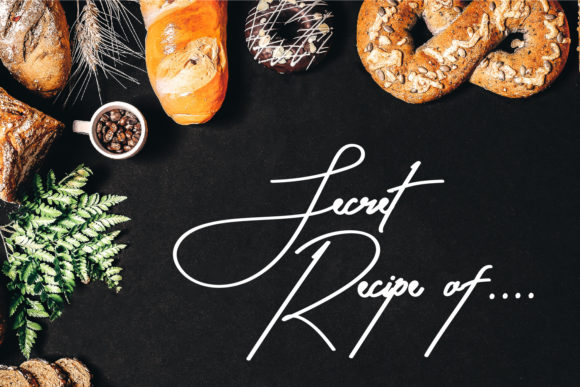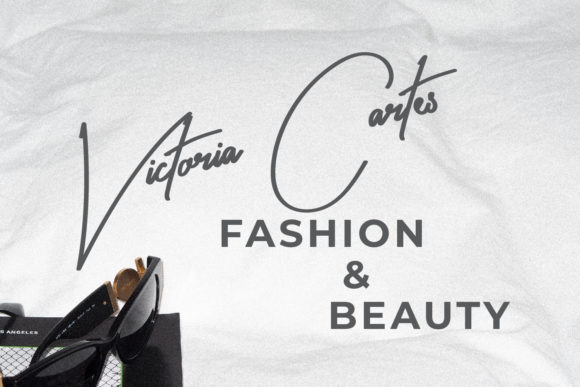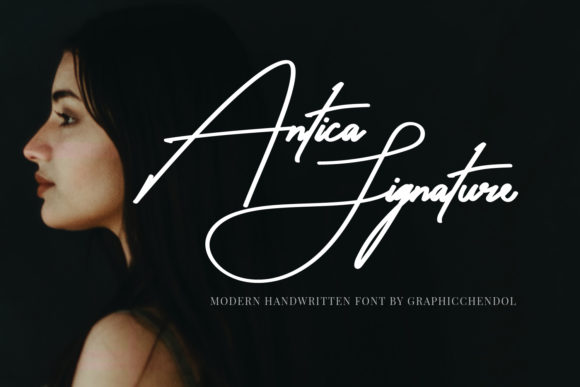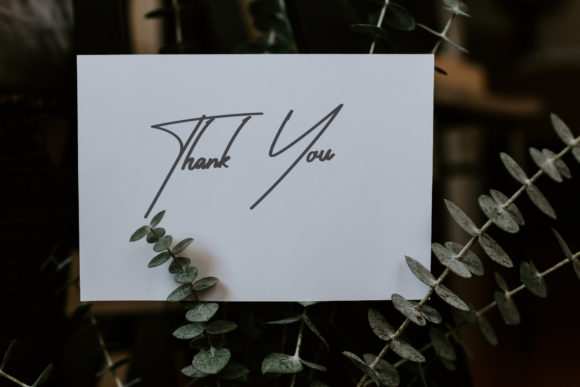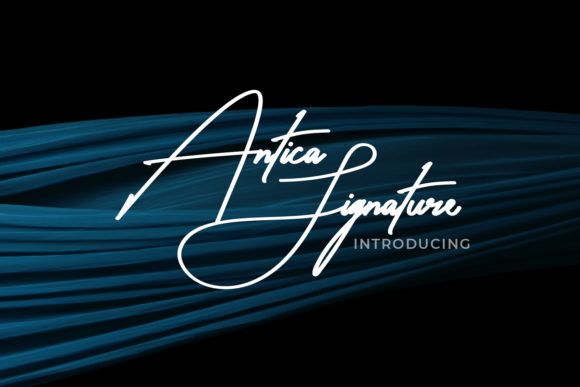
The Designer’s Delight: Antica Font
I still remember the project that led me to discover Antica Font. I was working on a client’s wedding invitation design, and I was struggling to find the perfect handwritten font that would match the elegant yet playful vibe of the event. The client wanted something modern, yet personal and inviting. After hours of browsing through font libraries, I stumbled upon Antica Font, and it was love at first sight! ✨
An Honest Review of Antica Font
As a designer, I appreciate fonts that are versatile and easy to work with. Here’s what I love about Antica Font:
• 💫 Modern handwritten feel that’s perfect for a wide range of design projects
• 🎨 Great for designs that require a personal touch, such as quotes, children’s designs, and wedding decor
• 📈 Works well for branding, logos, and product campaigns
While Antica Font is an excellent choice, it’s not without its quirks. Here are a few things to keep in mind:
• 🤔 Some users may find the font a bit too casual for very formal projects
• ⚠️ Limited availability of certain OpenType features in older software
The Story Behind Antica Font
Antica Font was designed with the goal of creating a modern, handwritten font that’s both elegant and approachable. The designer aimed to create a font that would be perfect for a wide range of design projects, from wedding decor to branding and advertising. With its clean lines, flowing curves, and highly legible letterforms, Antica Font has become a popular choice among designers and crafters.
What type of projects is Antica Font best suited for? Antica Font is perfect for a wide range of design projects, including quotes, shirt designs, websites, branding, children’s designs, wedding decor, home decor, blogs, logos, and product campaigns.
Is Antica Font easy to read? Yes, Antica Font is highly legible, even at small font sizes. Its clean lines and flowing curves make it easy to read and understand.
Does Antica Font come with OpenType features? Yes, Antica Font comes with a range of OpenType features, including stylistic alternates and glyphs. These features can be accessed in compatible software, such as Adobe Photoshop and Illustrator.